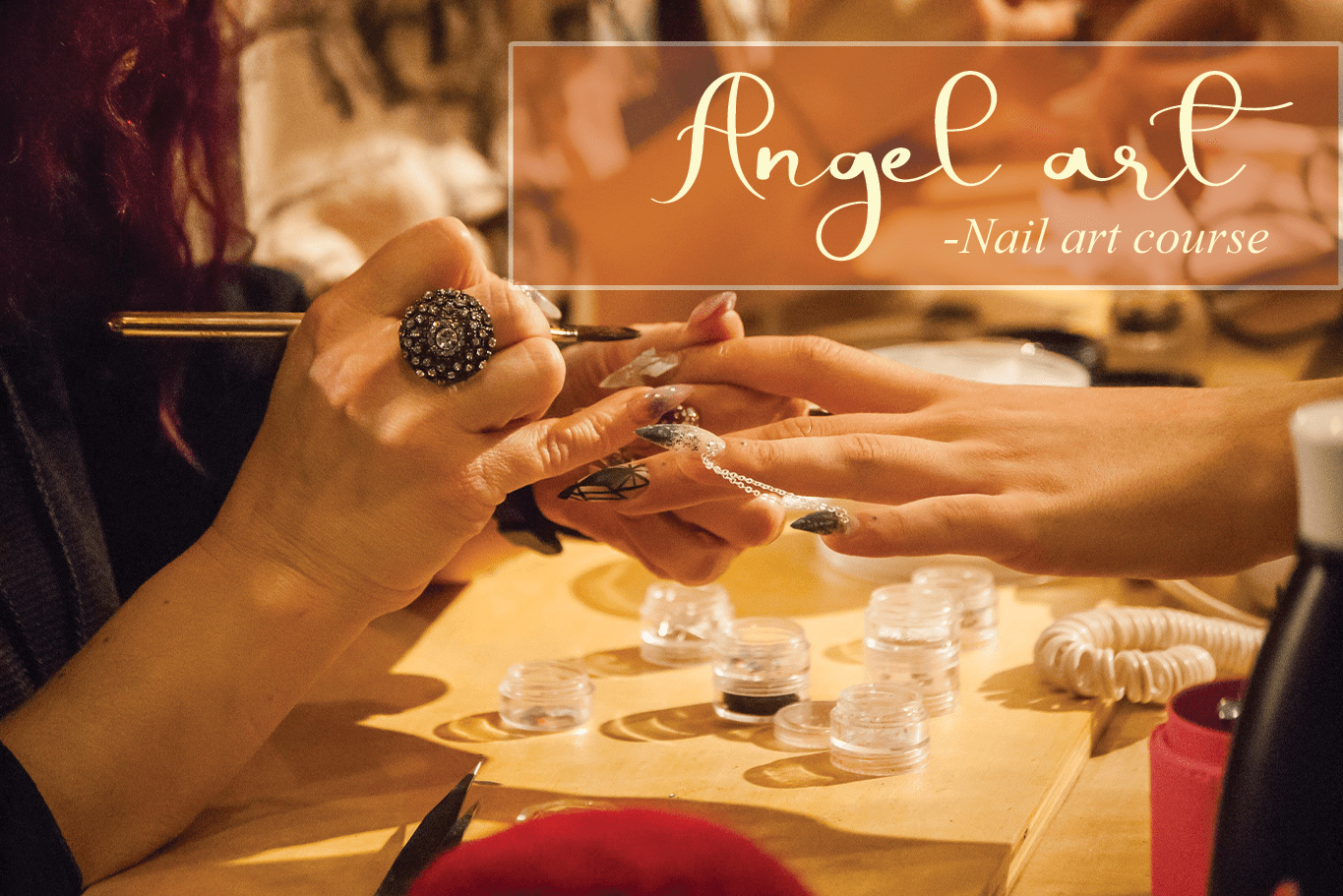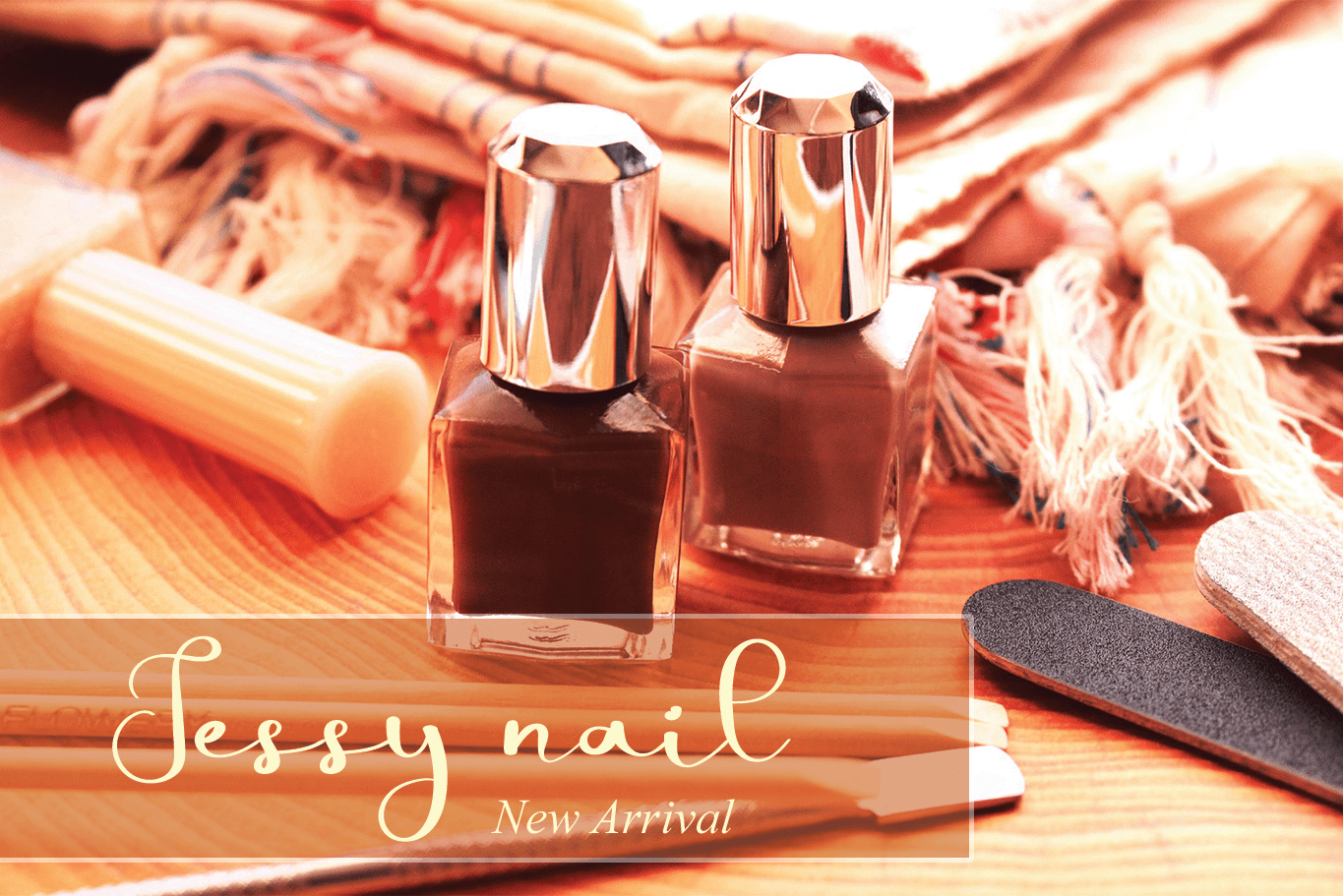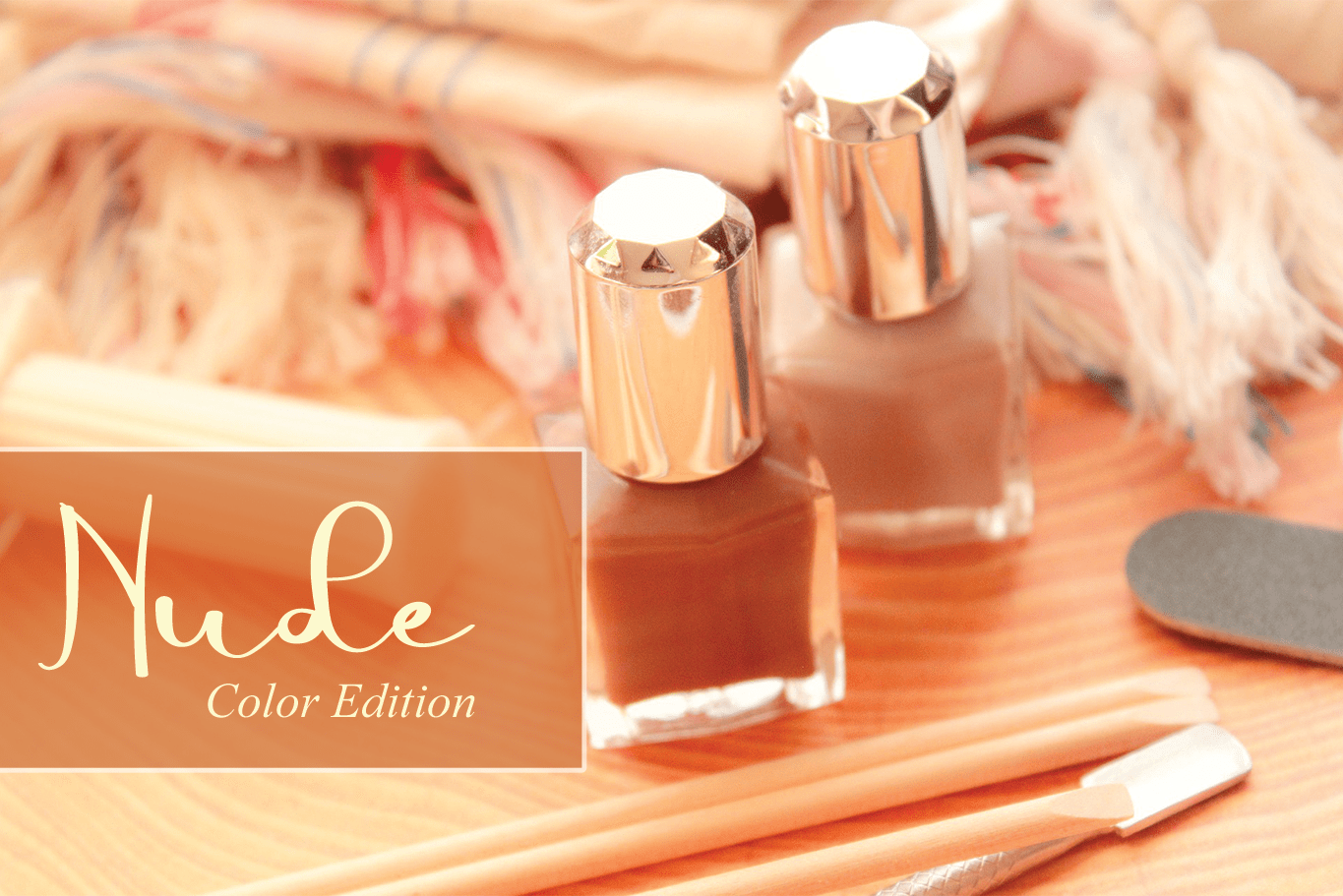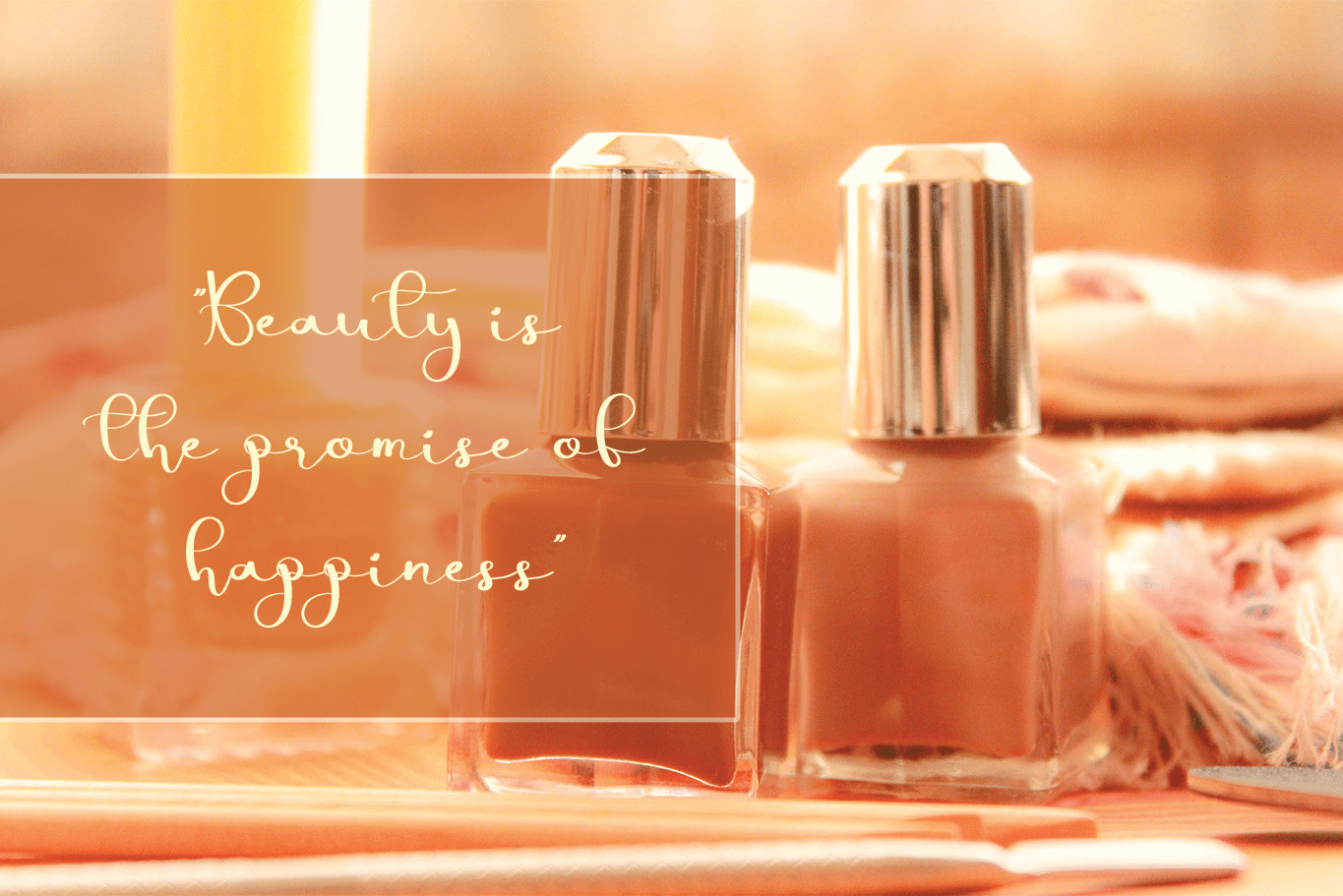
Cute Love Font
Cute Love Script Font
This is a chic, refined script font that emanates sophistication and elegance. Its stylish alternates and ligatures make this font the perfect match for any project.